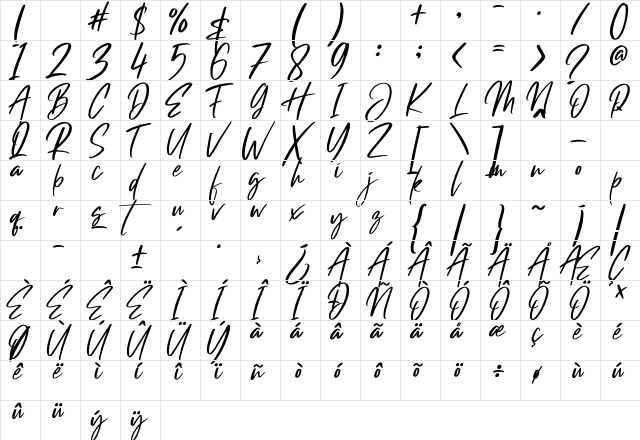
Hollanda Regular Font Preview
Hollanda Regular
Hollanda Regular Font Details
Design Context for Hollanda Typeface
Hollanda is a composed and adaptable typeface that performs quietly and consistently across a wide range of design contexts.